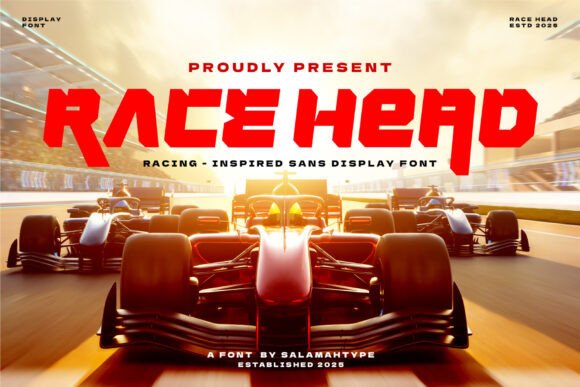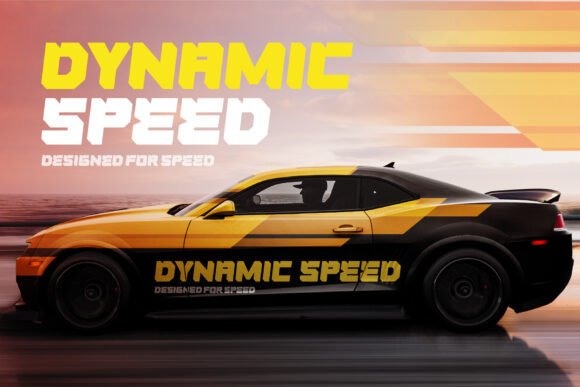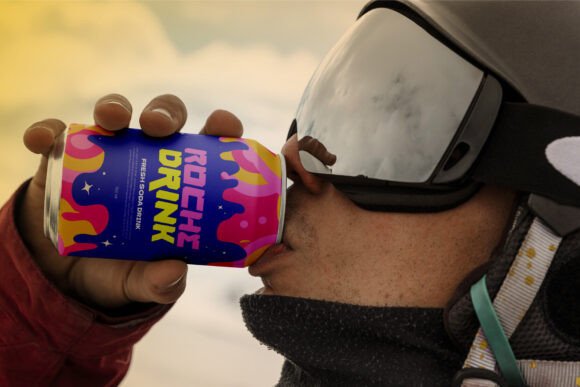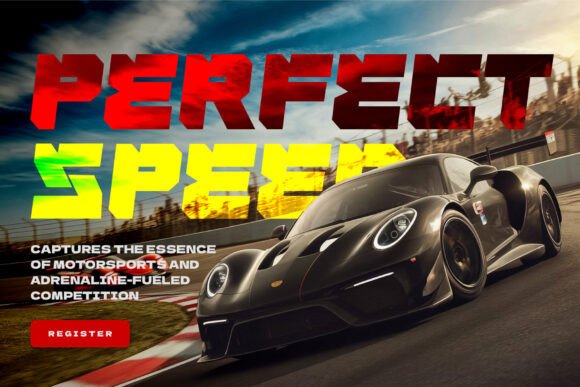
Race Head Font
About the Race Head Font
Introducing the Race Head Font, a beautifully crafted typeface designed to elevate your creative projects. Race Head is a powerful sports race font with a bold and dynamic style, designed to bring energy and speed to your designs. With its strong letterforms and striking alternates, this font ensures your logos, headlines, and branding stand out with confidence.
Perfect for sports branding, racing events, gaming titles, posters, and team logos, Race Head includes ligatures and alternates, giving you creative flexibility to customize your typography. Its simplicity makes it easy to use, while its bold presence makes a lasting impact.
Race Head Font Usage Examples
Race Head Font Example